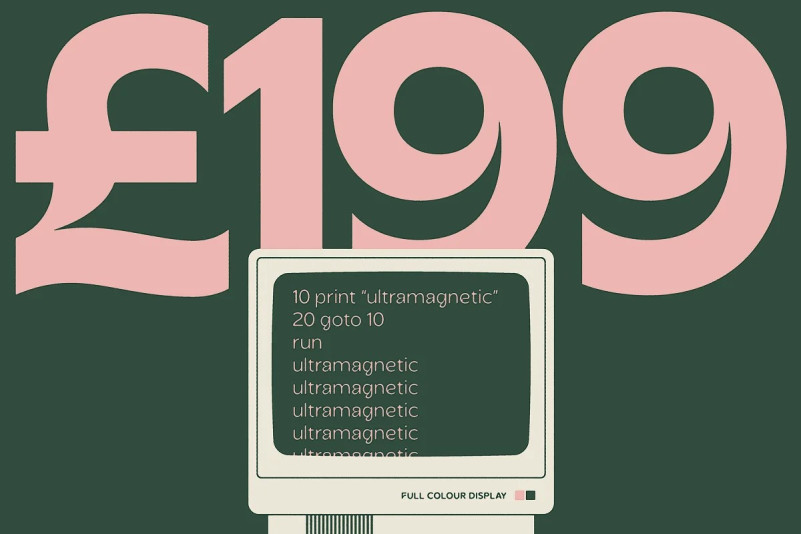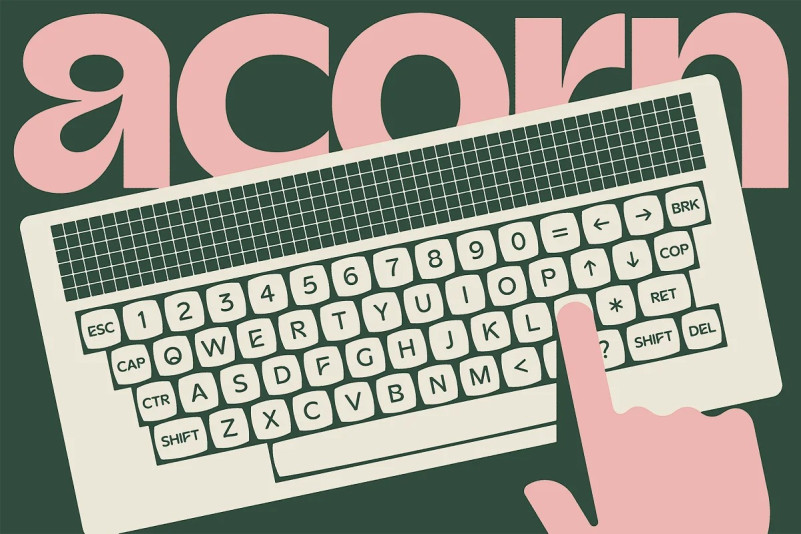
Acorn Font
Acorn Sans Serif Font is a display sans serif in seven weights. It’s clean and modern, but with some organic touches for a unique typographic flow.